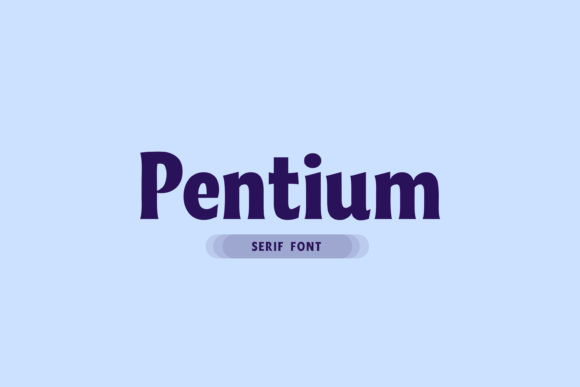
Step into the world of visual enchantment with Pentium Font, a display font that commands attention with its bold and thick lettering. Let your imagination soar as you explore the endless possibilities of this remarkable font.
Crafted by the masters of Design Stag, Pentium Font is a treasure trove of creativity, perfect for adding a dash of individuality to your web designs, business cards, and any project yearning for a unique touch. Immerse yourself in a symphony of styles, from modern and edgy to classic and timeless.
With Pentium Font, your designs will dance off the screen, captivating your audience with its magnetic energy. Unleash your inner artist and let Pentium Font guide you through a journey of visual storytelling.
Don't settle for ordinary fonts; embrace the extraordinary with Pentium Font. Its distinct character will elevate your projects, making them stand out from the crowd. Let your creativity flourish as you witness the stunning outcome generated by this exceptional font.